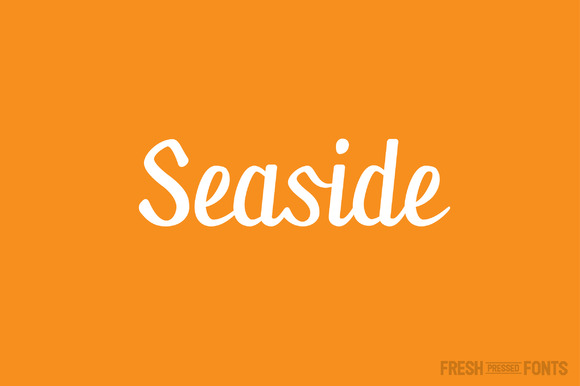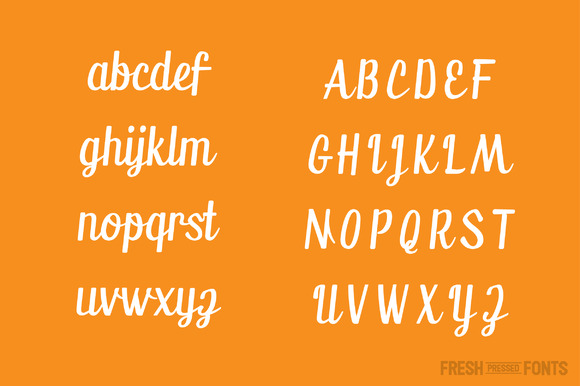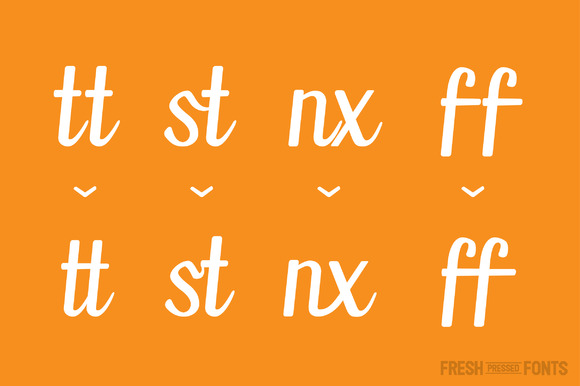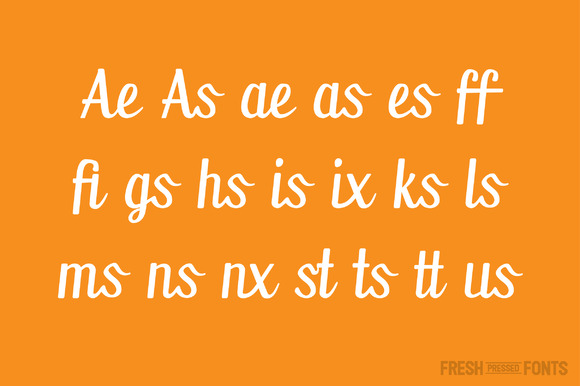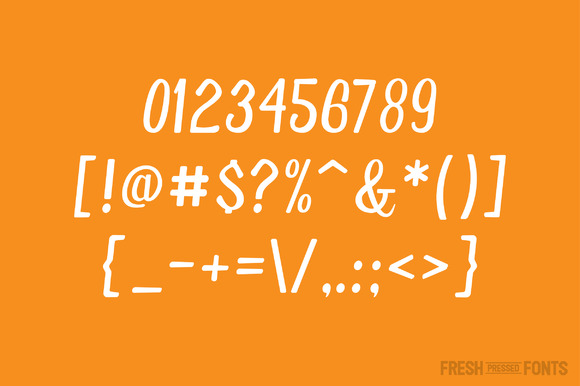
Seaside Font
About Seaside Font
Seaside is an elegant display script font with a mix of classic script as well as stylized hand lettering.
There are over 30 ligatures included so you’ll never be left without a proper connection. With over 200 glyphs total, it supports multiple languages and any punctuation and symbols you may need. Built in OTF, you will need a program that supports ligatures to achieve these results.